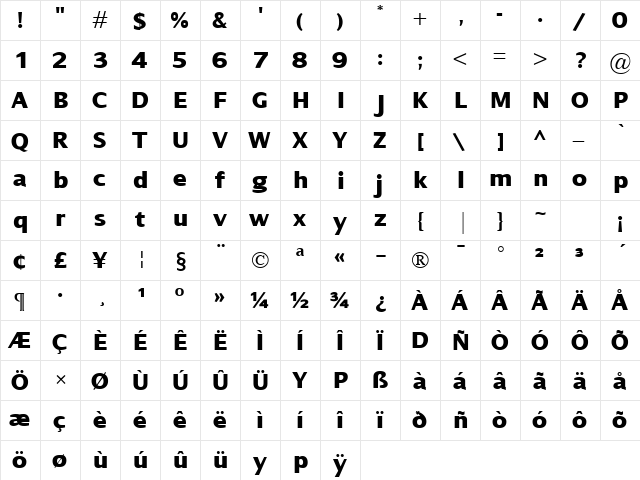
Dialog XBold Regular
Dialog XBold Regular Font Details
Design Context for Dialog XBold Typeface
Dialog XBold is a composed and adaptable typeface that performs quietly and consistently across a wide range of design contexts. The heavy weight commands attention and anchors typographic hierarchies.